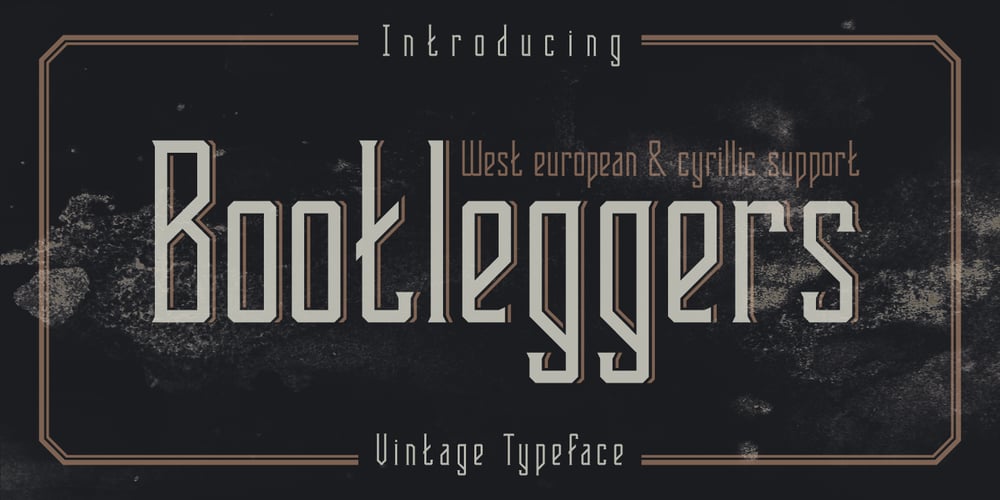
Bootleggers Font Family was designed by Gleb Guralnyk and published by Gleb Guralnyk. Bootleggers contains 4 styles and family package options. Hello! Introducing a vintage style font “Bootleggers”. It’s made of strong straight lines with tiny and accurate accent lines. It has a wide spectrum of languages support, including West European, Cyrillic languages etc. There are also a separate font files for two font layers, for easy combining the styles.